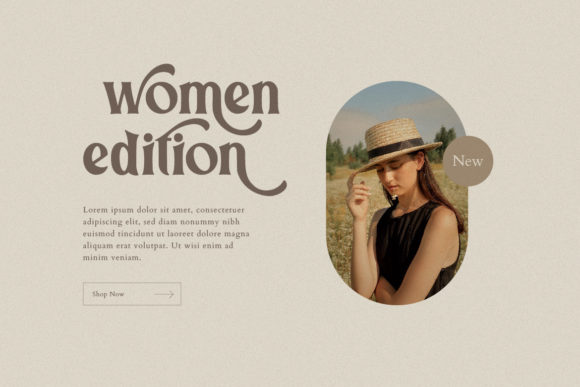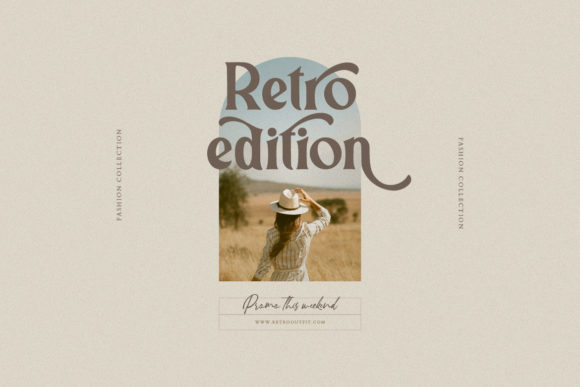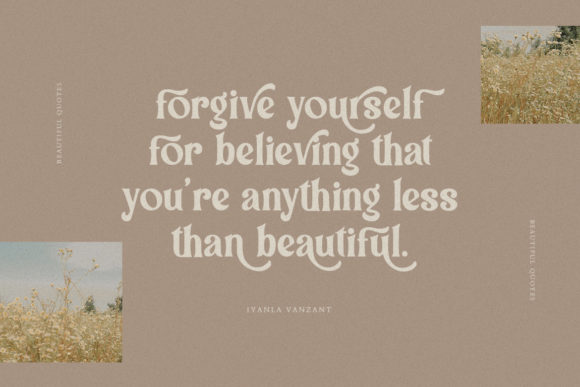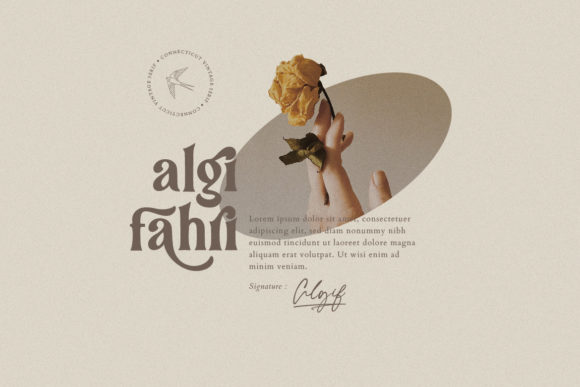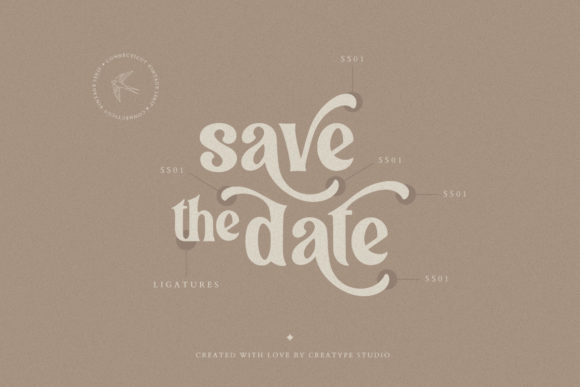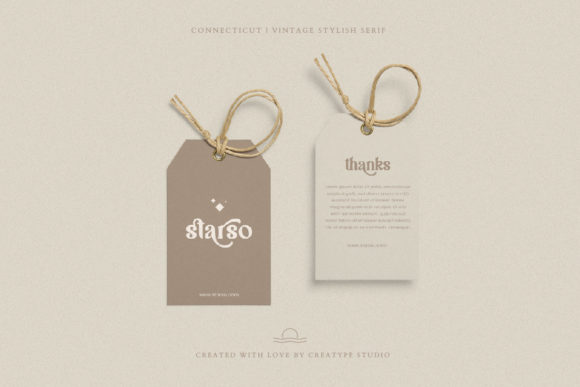
Introducing Connecticut Font: Elevate Your Designs with Vintage Chic
Are you a designer, crafter, or creative looking to add a touch of sophistication and elegance to your projects? Look no further than the Connecticut Font, a stunning vintage-inspired serif font that’s sure to become a staple in your font library. With its bold, yet refined aesthetic, this font is perfect for a wide range of applications, from branding and advertising to crafting and DIY projects.
What Makes Connecticut Font So Special?
Connecticut Font is a beautifully crafted serif font that exudes a sense of classic chic. Its vintage charm is balanced by a modern edge, making it an incredibly versatile font that’s suitable for a variety of design needs. Whether you’re creating a logo, brochure, or social media graphics, this font is sure to make a lasting impression.
Key Features of Connecticut Font
- Vintage Inspiration: Connecticut Font draws inspiration from classic serif fonts, giving it a timeless and sophisticated feel.
- Bold and Refined: With its bold strokes and refined lines, this font is perfect for creating eye-catching headlines and titles.
- PUA Encoded: The Connecticut Font is PUA (Private Use Area) encoded, which means you can easily access all glyphs and swashes without the need for additional software or complicated setup.
- Wide Range of Applications: From branding and advertising to crafting and DIY projects, this font is suitable for a wide range of creative endeavors.
Why You’ll Love Connecticut Font
As a designer or crafter, you know how important it is to have a font that can keep up with your creative vision. Connecticut Font is more than just a pretty face – it’s a valuable asset that can help elevate your designs and take them to the next level. Here are just a few reasons why you’ll love this amazing font:
Effortless Elegance
Connecticut Font makes it easy to add a touch of elegance to your designs. Its classic lines and refined aesthetic ensure that your projects will look polished and sophisticated, even if you’re short on time or design experience.
Unlimited Creative Possibilities
With its PUA encoding and wide range of glyphs and swashes, Connecticut Font offers endless creative possibilities. Whether you’re creating a simple logo or a complex branding campaign, this font has the flexibility and versatility to bring your vision to life.
Perfect for Crafters and Designers
Connecticut Font is a perfect fit for crafters and designers who want to add a professional touch to their projects. Whether you’re creating handmade cards, party decorations, or bespoke gifts, this font is sure to impress.
- Experiment with Different Sizes: Connecticut Font looks great in a variety of sizes, from small captions to large headlines. Experiment with different sizes to find the perfect fit for your design.
- Pair with Other Fonts: Connecticut Font pairs beautifully with other serif and sans-serif fonts. Try pairing it with a clean sans-serif font for a striking contrast.
- Use Swashes and Glyphs: Don’t be afraid to get creative with the font’s swashes and glyphs. These special characters can add an extra touch of elegance and sophistication to your designs.